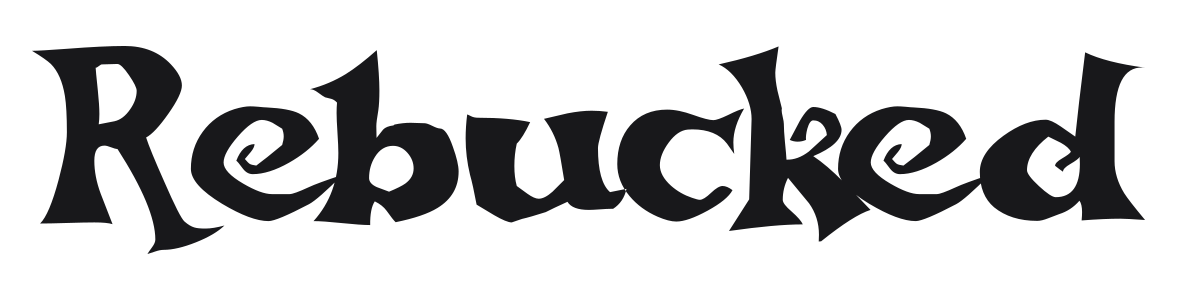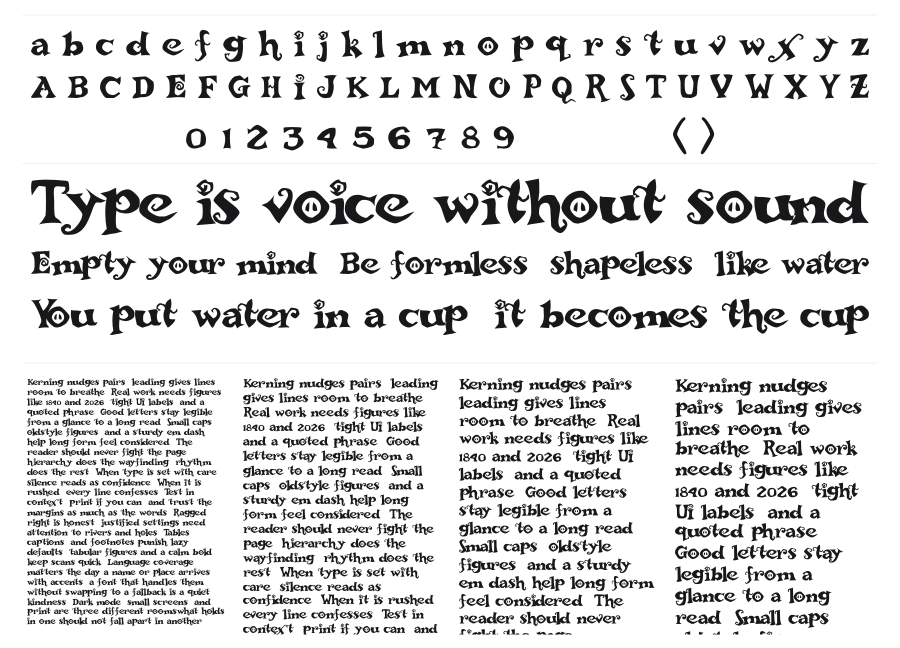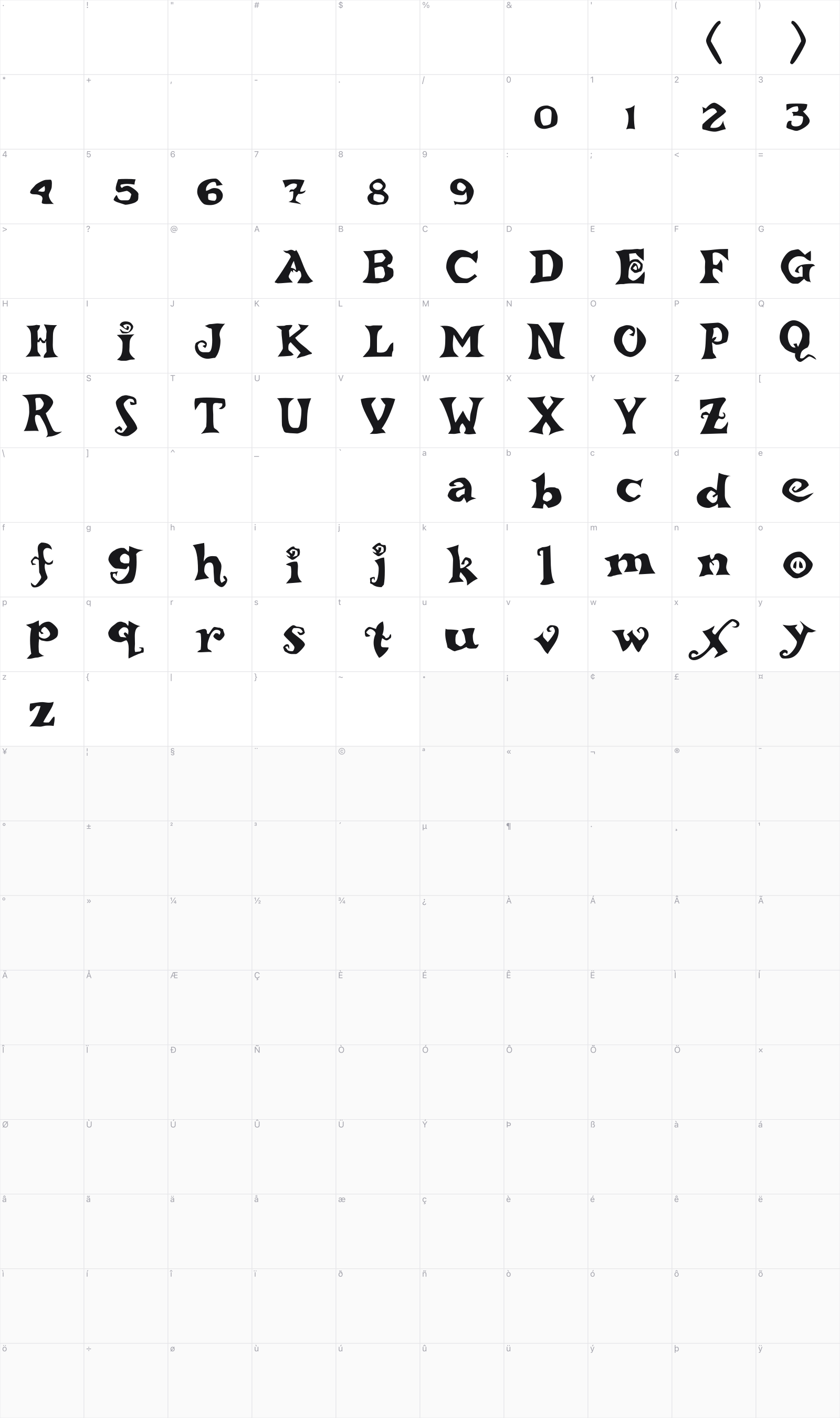
Rebucked
Rebucked is a heavy groovy display face with thick, swelling strokes and a distinctly 1960s psychedelic character. The organic curves, inktraps, and quirky details give each character a hand-drawn energy that feels rooted in underground poster art. It works best large, where the personality of each form can breathe.